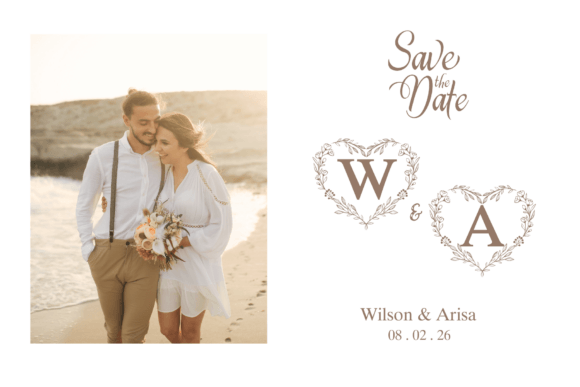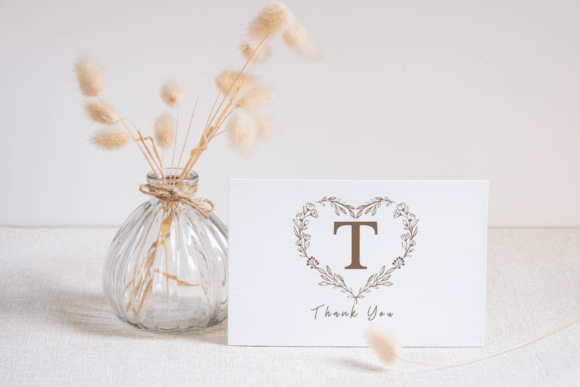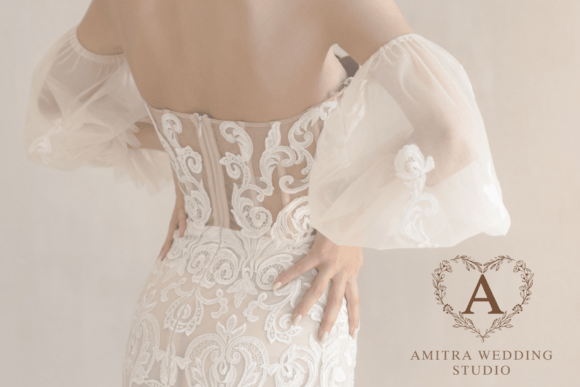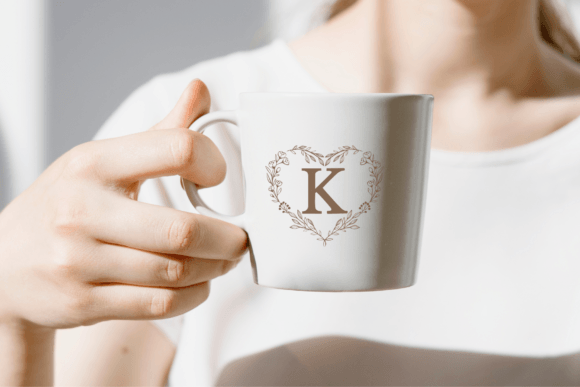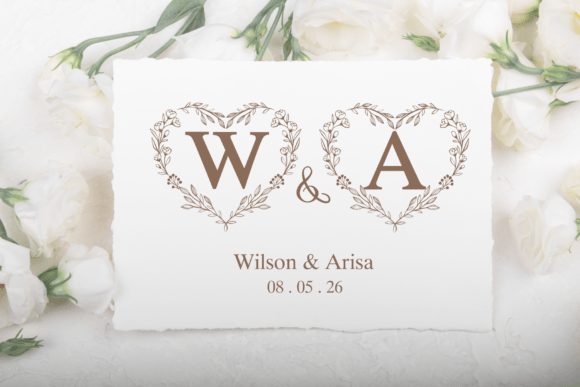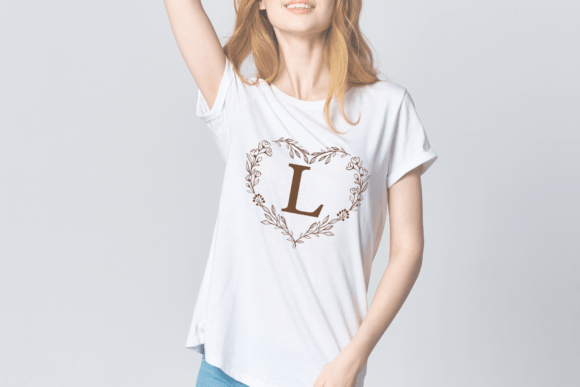
Introducing the Floral Heart Monogram Font: Elevate Your Designs with Elegance
The Floral Heart Monogram Font is a stunning addition to any designer’s collection, perfect for those seeking to add a touch of sophistication and charm to their creations. This elegant font is specifically designed for special occasions, featuring decorative letters nestled within a beautiful flower heart frame. Whether you’re crafting invitations, wedding cards, or any other celebratory materials, this font is sure to impress.
What Makes the Floral Heart Monogram Font So Special?
The Floral Heart Monogram Font stands out from other fonts due to its unique and intricate design. The beautiful flower heart frame that encases the decorative letters adds a level of detail and refinement that is hard to find elsewhere. This font is not just a collection of letters; it’s a work of art that can elevate any design from ordinary to extraordinary.
Perfect for Special Occasions
Special occasions call for special designs, and the Floral Heart Monogram Font delivers. Its elegant and sophisticated look makes it an ideal choice for:
- Wedding invitations and cards: Add a touch of romance and luxury to your wedding stationery.
- Birthday celebrations: Make birthdays even more special with a font that exudes joy and festivity.
- Anniversary cards: Commemorate love and commitment with a beautifully designed anniversary card.
- Any celebratory materials: From baby shower invitations to graduation announcements, this font is versatile enough to be used for various special occasions.
Why Designers and Crafters Love the Floral Heart Monogram Font
Designers and crafters are always on the lookout for unique and versatile elements to incorporate into their projects. The Floral Heart Monogram Font offers several benefits that make it a favorite among creative professionals:
- Elegance and Sophistication: The font’s elegant design adds a level of sophistication to any project, making it perfect for clients seeking high-end solutions.
- Customization: With the ability to use custom letters within the flower heart frame, designers can tailor the font to fit their project’s specific needs.
- Versatility: The font can be used for a wide range of projects, from digital designs to print materials, offering endless possibilities for creative expression.
- Time-Saving: The Floral Heart Monogram Font provides a quick and easy way to add a professional touch to designs, saving time and effort in the creative process.
How to Use the Floral Heart Monogram Font in Your Designs
Incorporating the Floral Heart Monogram Font into your designs is straightforward and easy. Here are some tips to get you started:
- Pair with Complementary Fonts: Combine the Floral Heart Monogram Font with simpler fonts to create visual interest and hierarchy in your designs.
- Experiment with Colors: The font’s beautiful design works well with a variety of colors. Experiment with different palettes to find the perfect match for your project.
- Use for Headers and Titles: The font’s decorative nature makes it perfect for headers and titles. Use it to draw attention and add a touch of elegance to your designs.
The Floral Heart Monogram Font is a beautiful and elegant addition to any designer’s toolkit. Its unique design, versatility, and ease of use make it perfect for a wide range of projects, from wedding invitations to custom crafts. Whether you’re a professional designer or a crafter looking to add a special touch to your creations, this font is sure to inspire and elevate your designs.